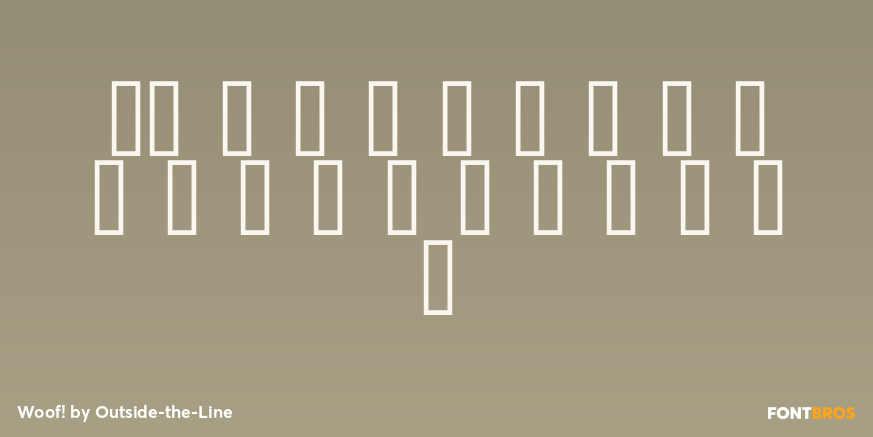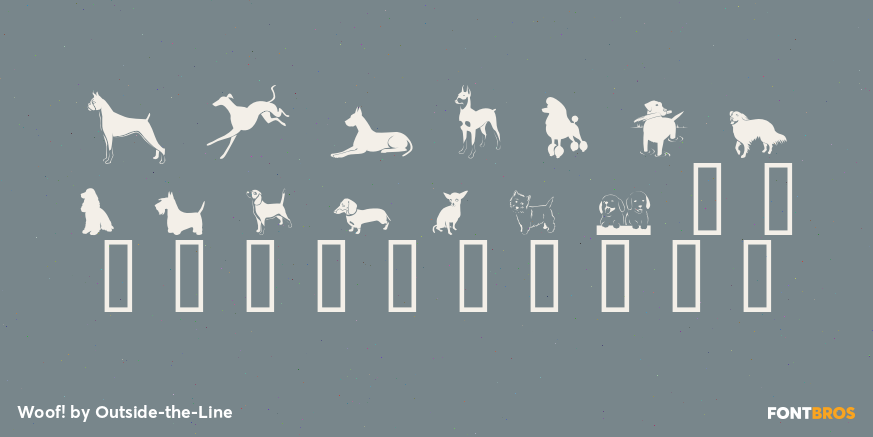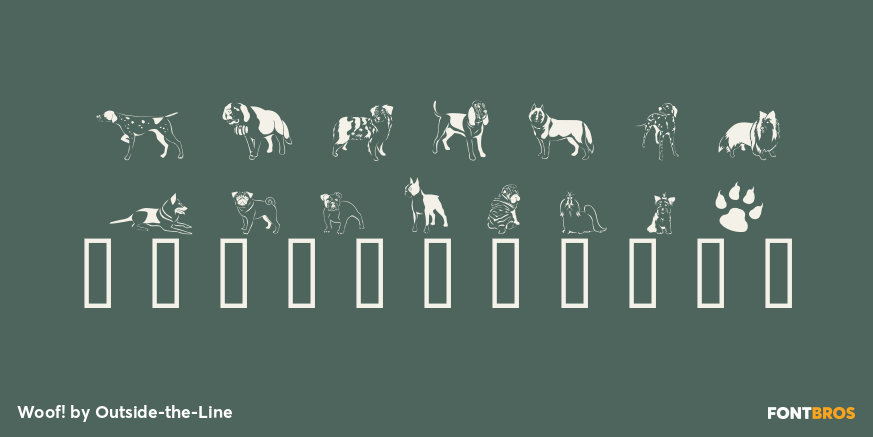
Woof!
Font Family by Outside-the-Line
Woof! A font full of the best-loved dogs plus one mutt. Distinct lines convey the character and heart of each breed.